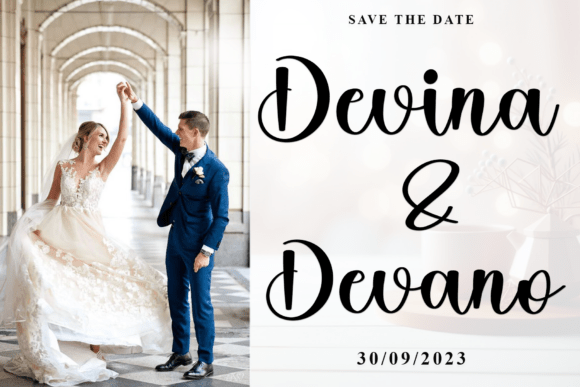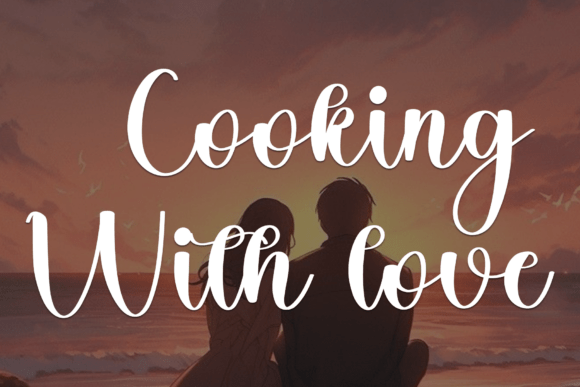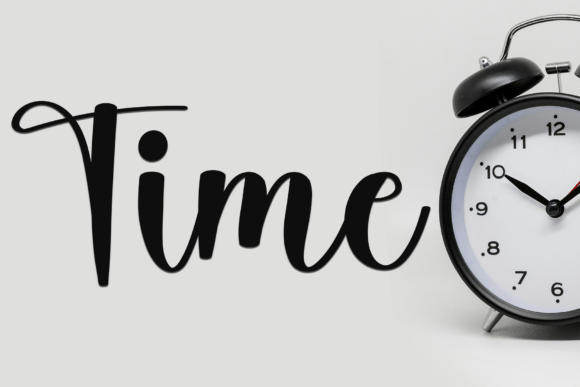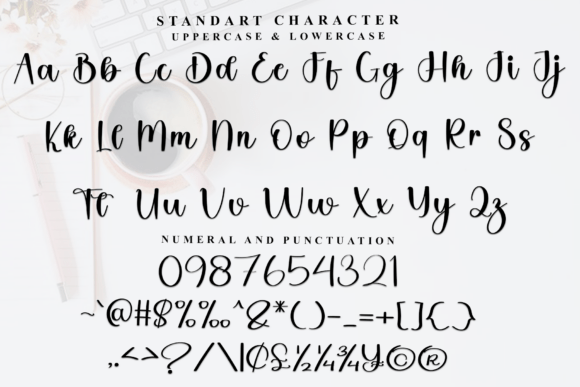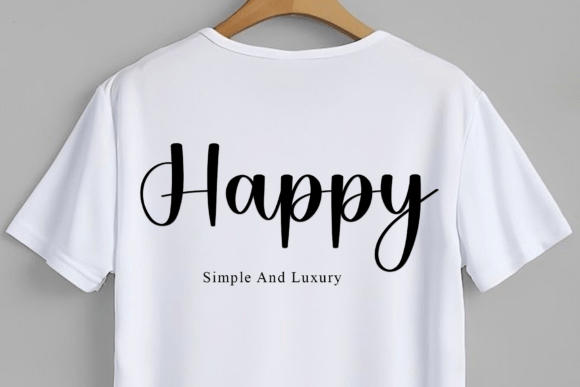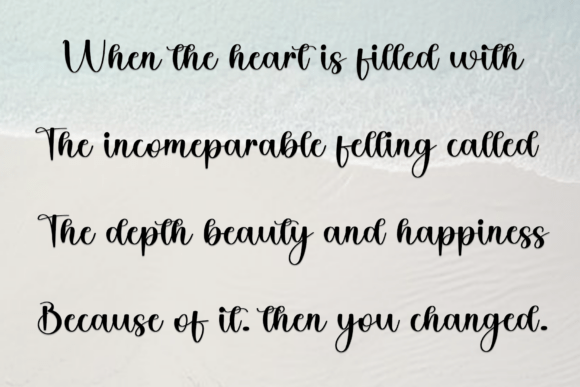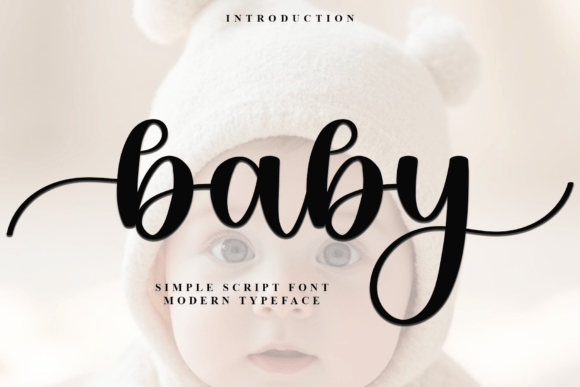
Baby Font: The Ultimate Holiday Typeface for Your Festive Designs
Are you looking for a font that embodies the magic of the holiday season? Look no further than Baby Font, a festive and merry typeface that’s perfect for adding a touch of enchantment to your designs. With its decorative elements and whimsical flair, Baby Font is sure to bring a cheerful and nostalgic ambiance to your words.
What Makes Baby Font So Special?
Baby Font is a unique and captivating typeface that’s specifically designed to capture the spirit of the holiday season. Its decorative elements and whimsical flair make it perfect for a variety of design projects, from greeting cards and gift tags to holiday-themed projects and more. Whether you’re a designer, crafter, or DIY enthusiast, Baby Font is sure to become your go-to font for all your festive design needs.
As a designer or crafter, you know how important it is to have a font that can help you create stunning and eye-catching designs. Baby Font is perfect for a variety of design projects, including:
- Greeting cards: Create beautiful and festive greeting cards for the holiday season with Baby Font.
- Gift tags: Add a personal touch to your gifts with custom gift tags made using Baby Font.
- Holiday-themed projects: From invitations to party decorations, Baby Font is perfect for adding a touch of holiday cheer to your projects.
One of the best things about Baby Font is that it’s PUA (Private Use Area) encoded, which means you can access all of the amazing glyphs and ligatures with ease. This makes it easy to create stunning designs without having to worry about complicated font editing software. With Baby Font, you can simply select the glyphs and ligatures you want to use and get creative!
Bringing a Cheerful and Nostalgic Ambiance to Your Words
Baby Font is more than just a font – it’s an experience. With its whimsical flair and decorative elements, it’s sure to bring a cheerful and nostalgic ambiance to your words. Whether you’re creating designs for personal use or for clients, Baby Font is sure to help you create stunning and eye-catching designs that capture the spirit of the holiday season.
Tips for Using Baby Font in Your Designs
Here are a few tips for using Baby Font in your designs:
- Use Baby Font in combination with other fonts to create unique and eye-catching designs.
- Don’t be afraid to get creative and try new things – Baby Font is perfect for experimenting with different design styles and techniques.